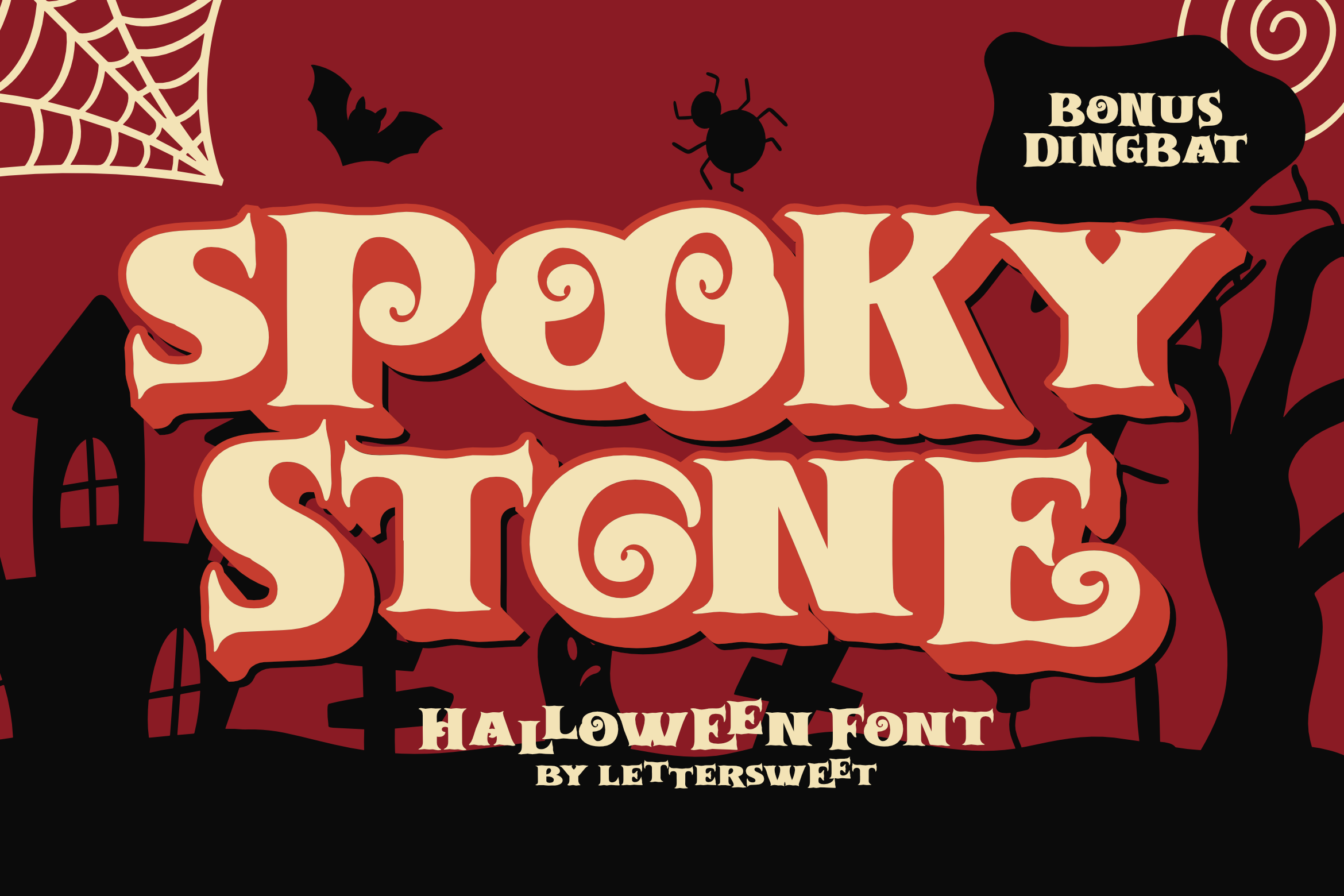
Spooky Stone - Fun And Playful Duo Font
About Spooky Stone - Fun And Playful Duo
Spooky Stone is a fun and playful duo font (display and dingbats) with a scary horror theme. Masterfully designed to become a true favorite, this font has the potential to bring each of your creative ideas to the highest level!